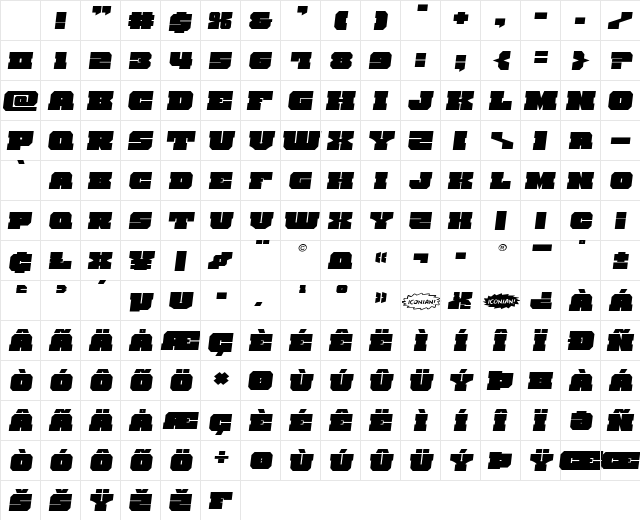
Kittrick Expanded Semi-Italic Expanded Semi-Italic
Style: Expanded Semi-Italic
Complete Kittrick Expanded Semi-Italic glyph index. Displaying only characters natively supported by Kittrick Expanded Semi-Italic font.
Design Context for Kittrick Expanded Semi-Italic
Kittrick Expanded Semi-Italic is a composed and adaptable typeface that performs quietly and consistently across a wide range of design contexts. The slanted form adds forward momentum and visual energy.